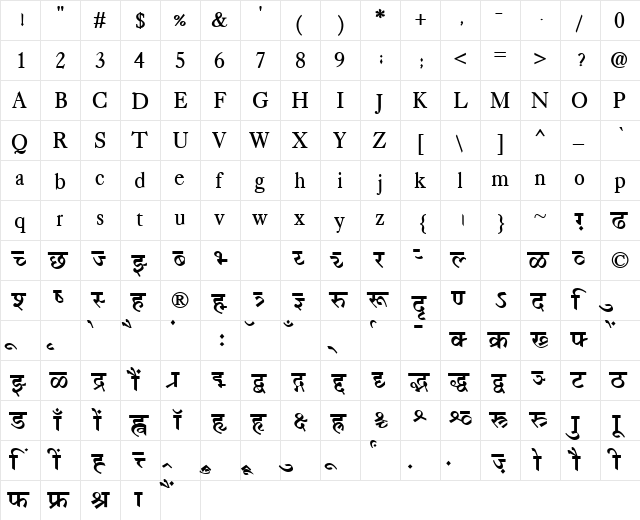
LangscapeDevPriya Bold
Design Context for LangscapeDevPriya Typeface
LangscapeDevPriya offers clean, dependable letterforms without strong stylistic allegiance, making it a practical choice for designers who need flexibility. Its bold stroke weight gives it real presence on the page.